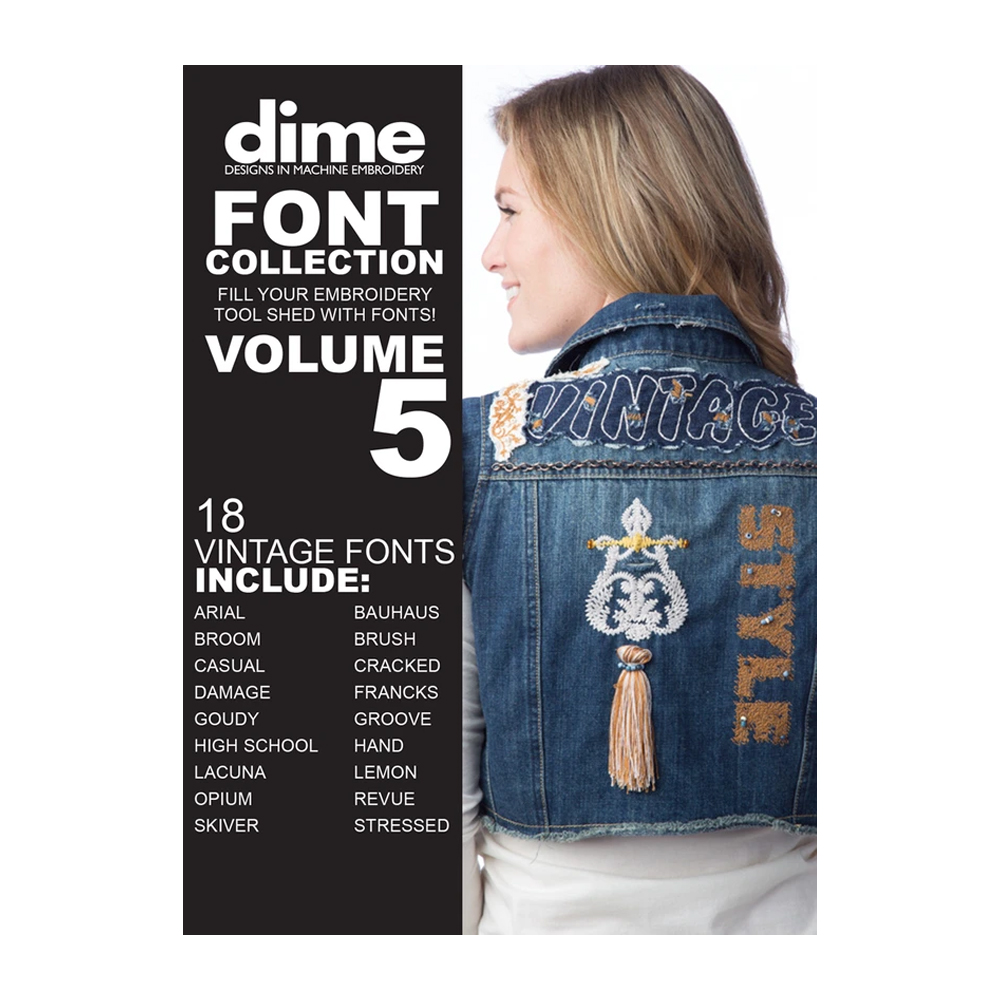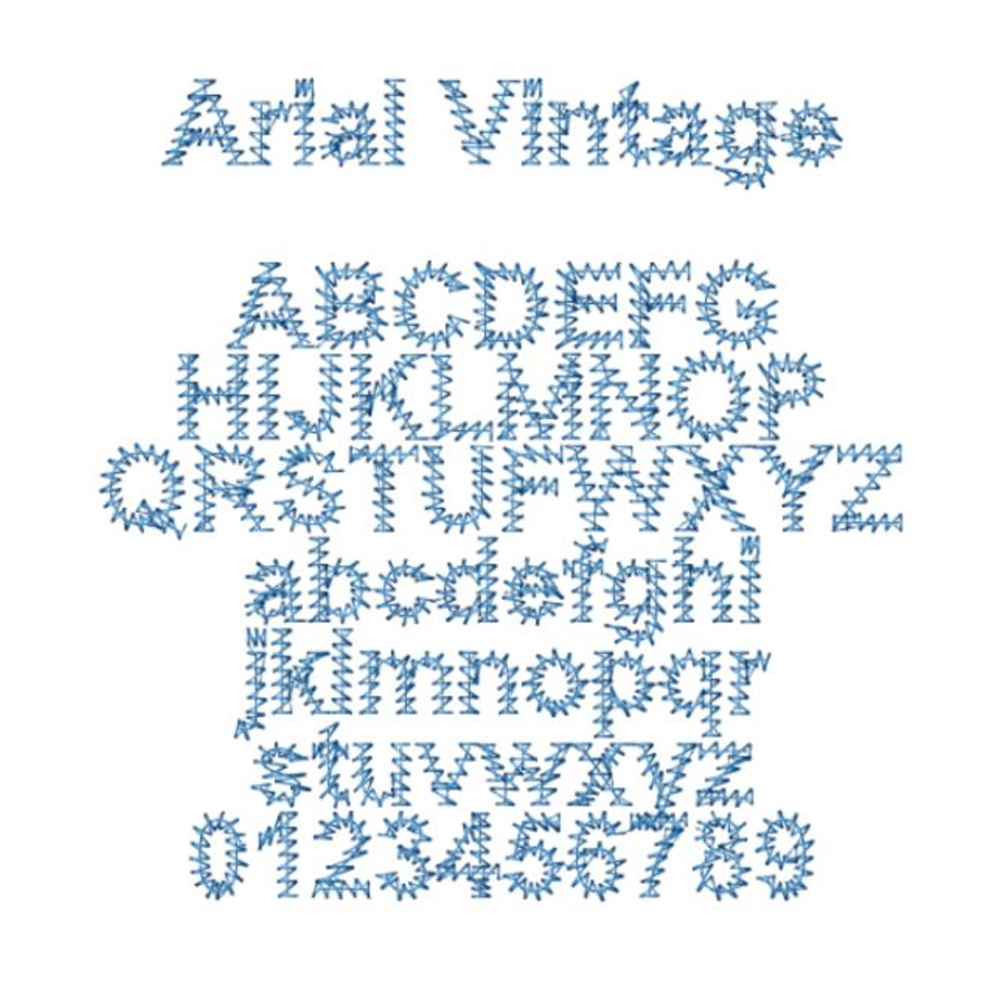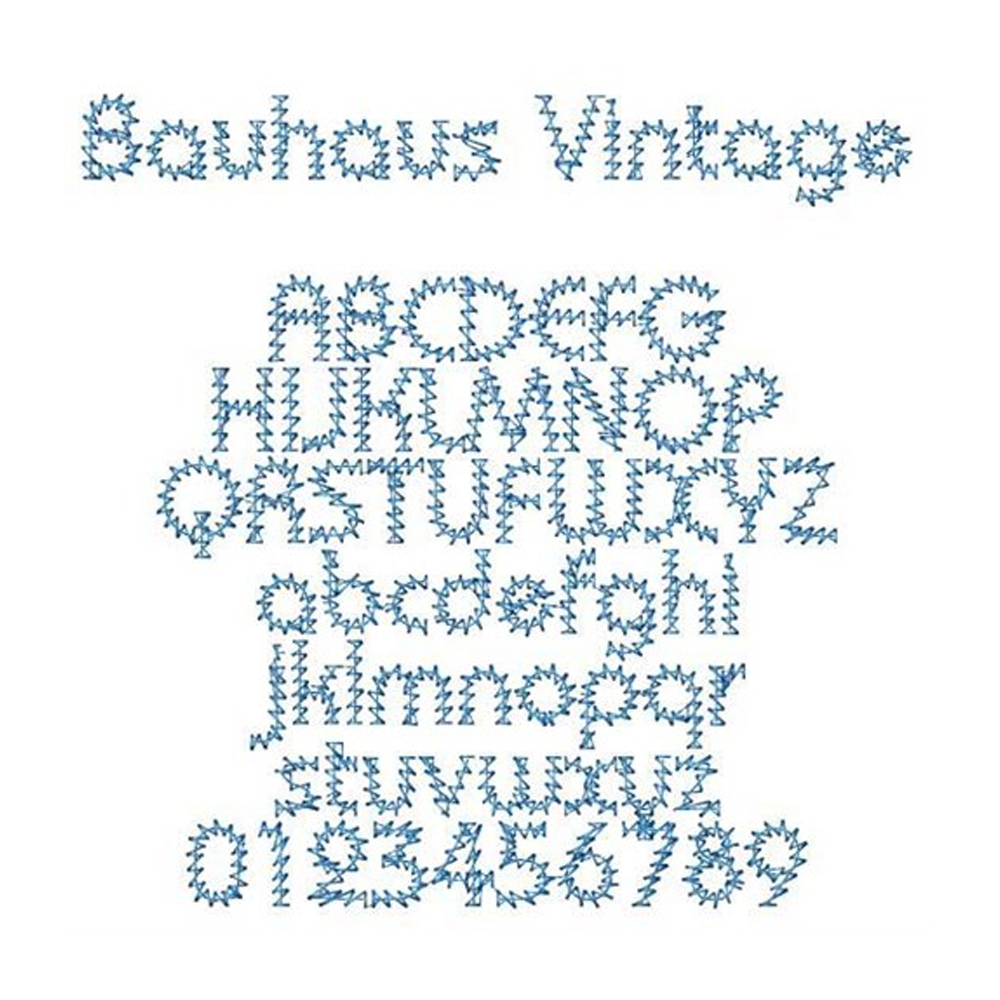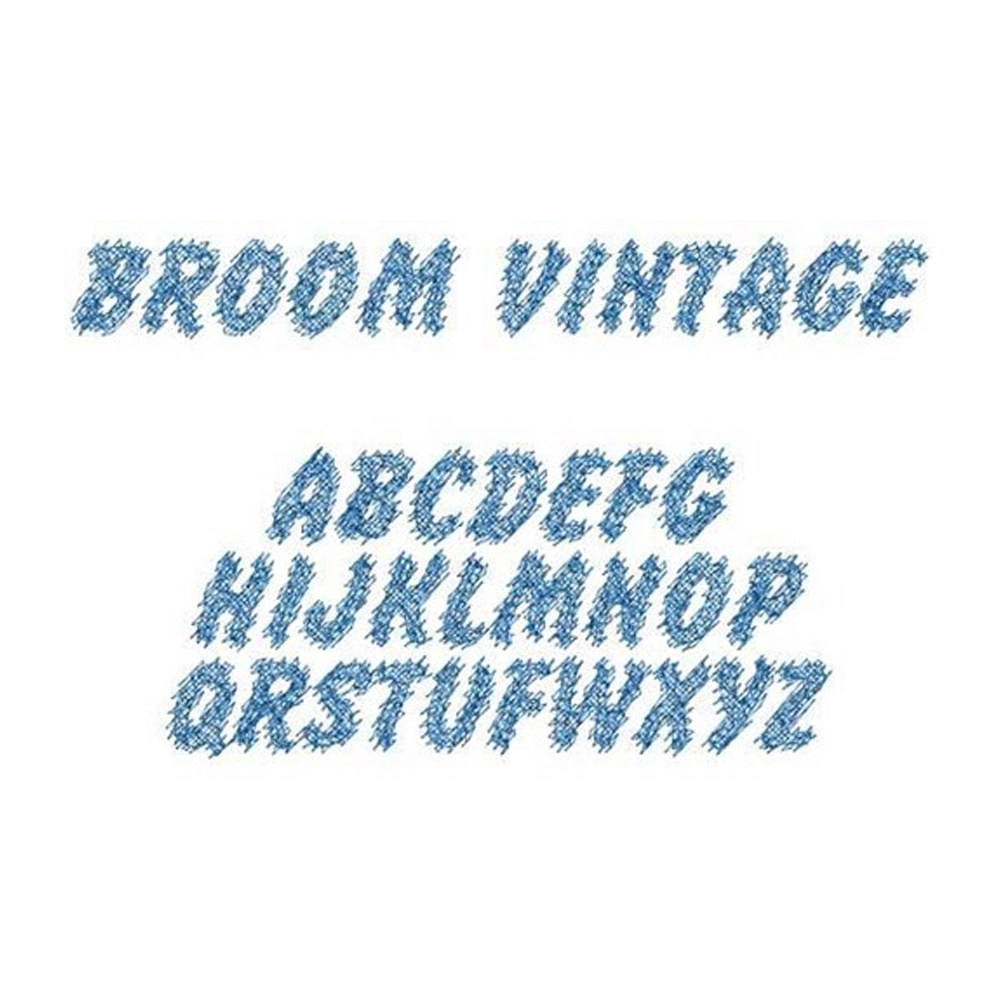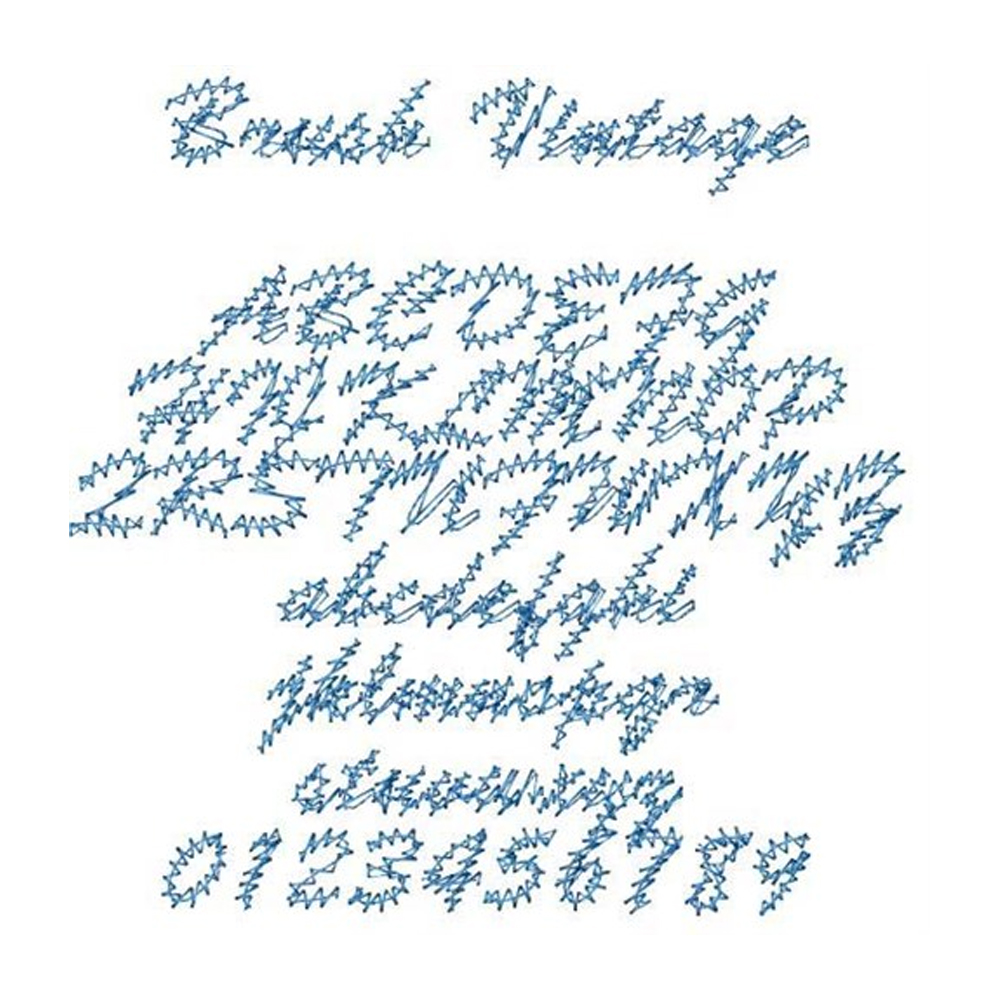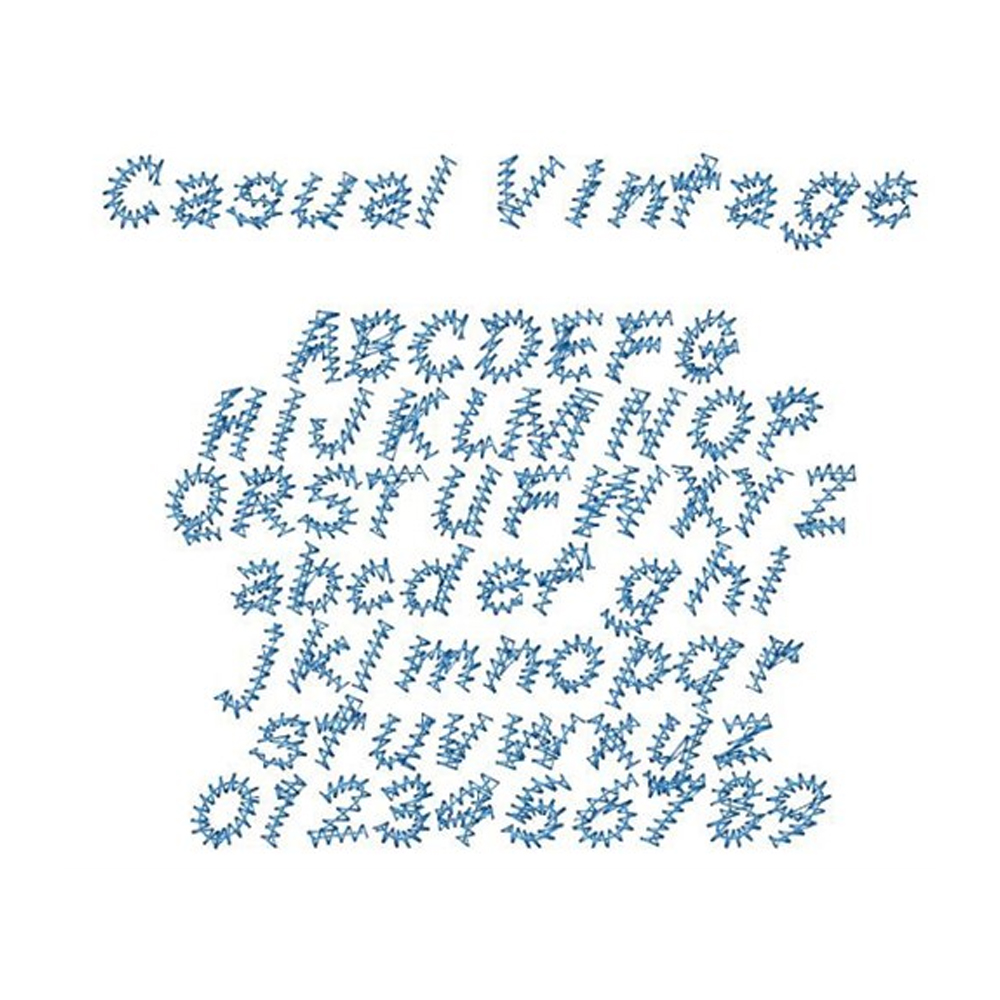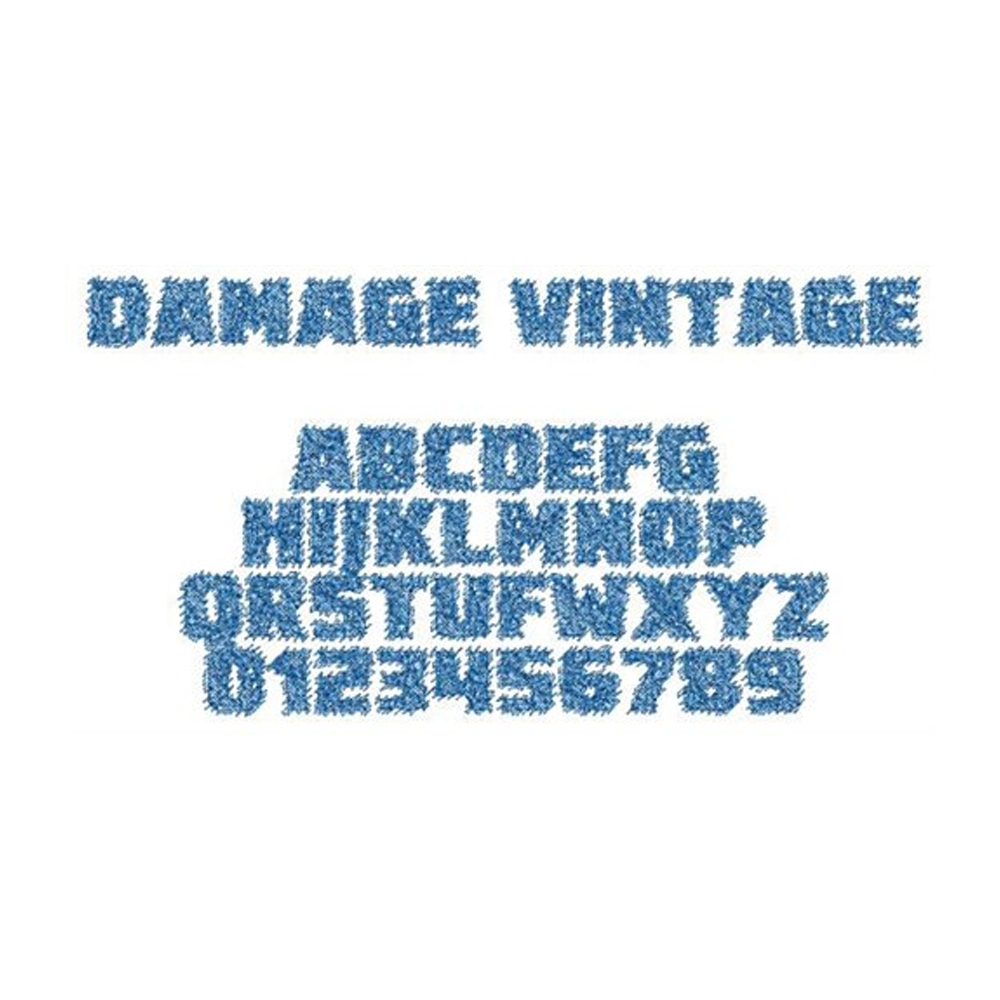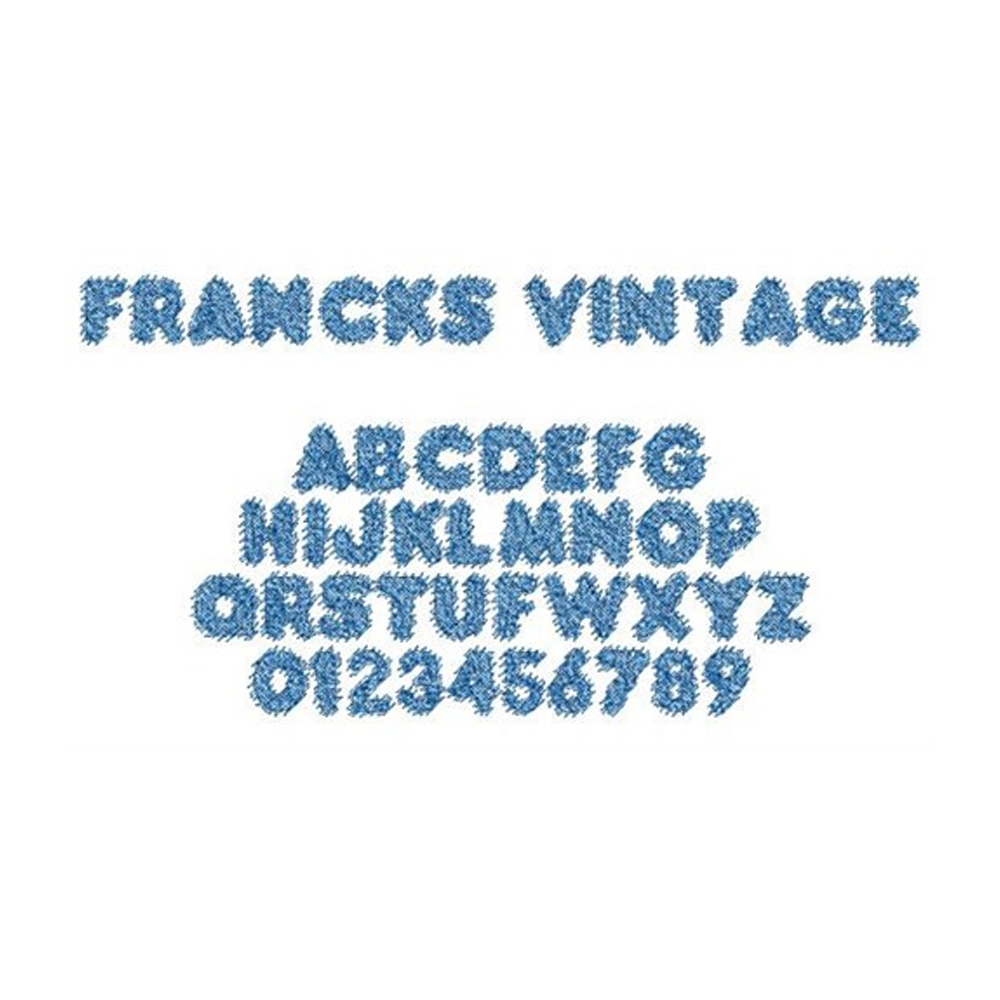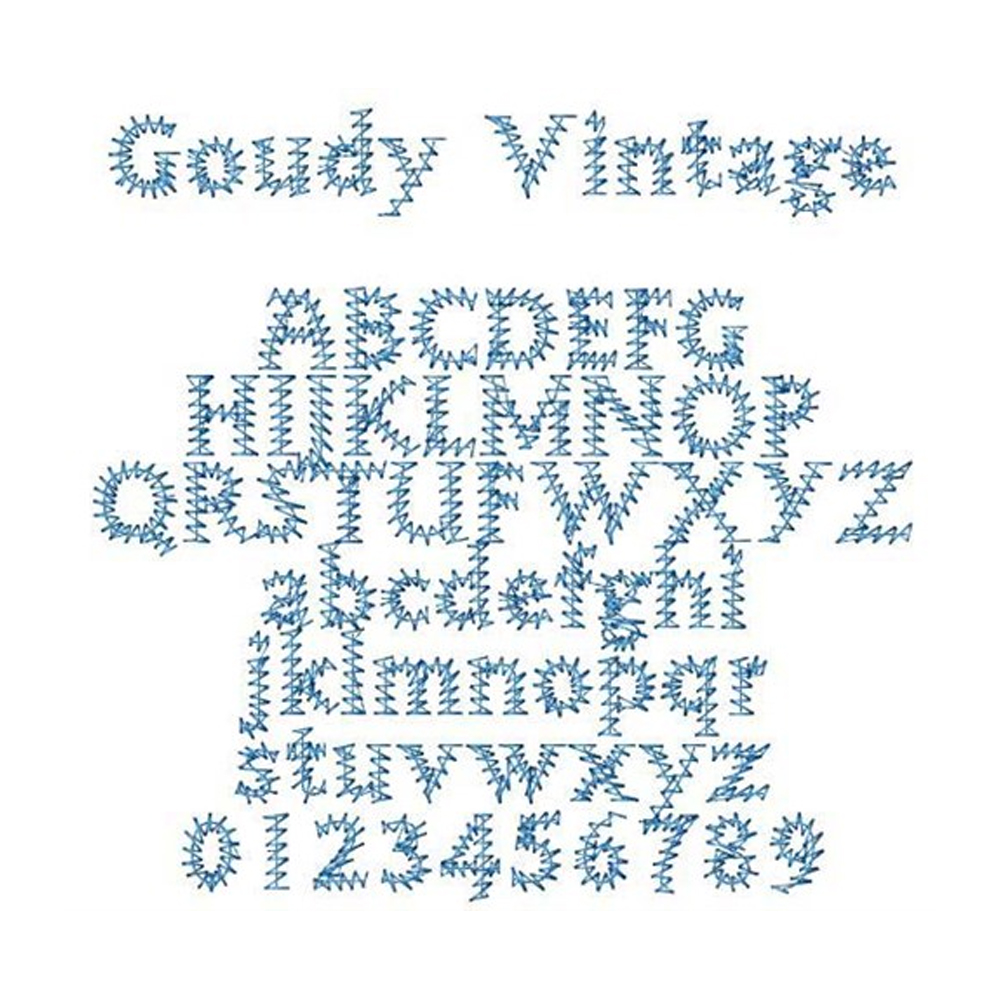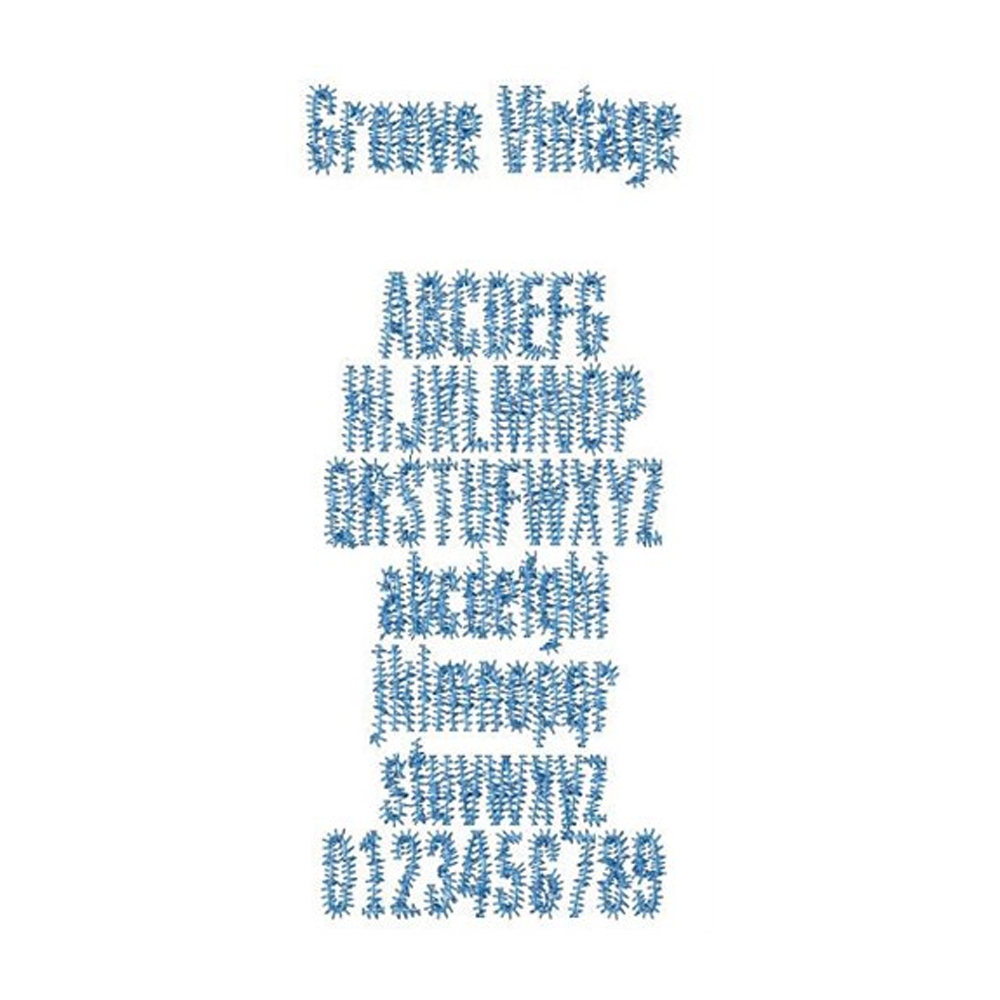
Font Collection Volume 5: Vintage Fonts
Includes 18 fonts for vintage thread projects
Create lovely vintage embroidery projects with these 18 fonts digitized for use with vintage thread. Works within The Embroidery Tool Shed.
Includes these fonts:
- Arial Vintage
- Bauhaus Vintage
- Broom Vintage
- Brush Vintage
- Casual Vintage
- Cracked Vintage
- Damage Vintage
- Francks Vintage
- Goudy Vintage
- Groove Vintage
- Hand Vintage
- High School Vintage
- Lacuna Vintage
- Lemon Vintage
- Opium Vintage
- Revue Vintage
- Skiver Vintage
- Stressed Vintage